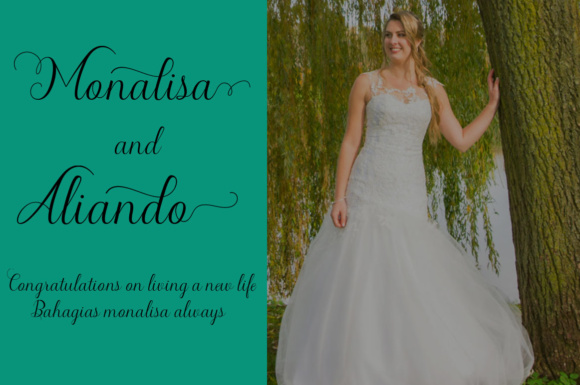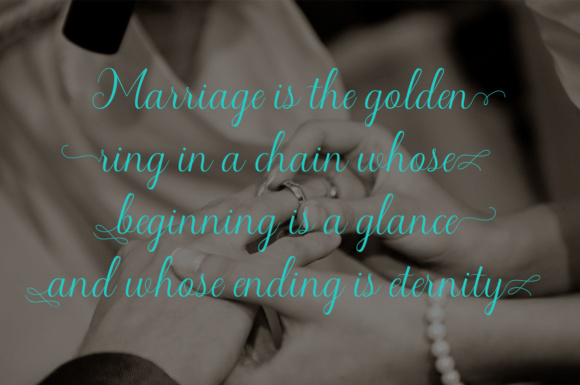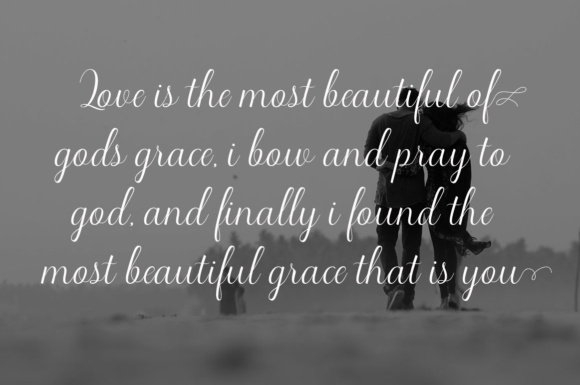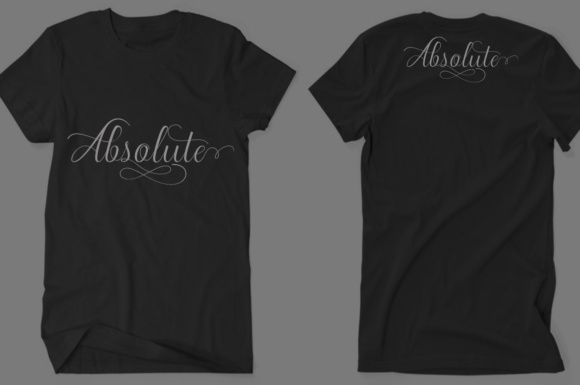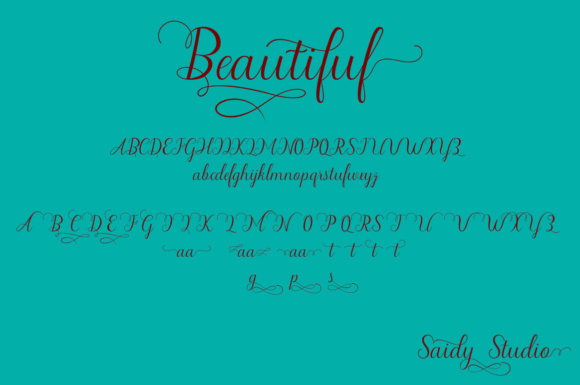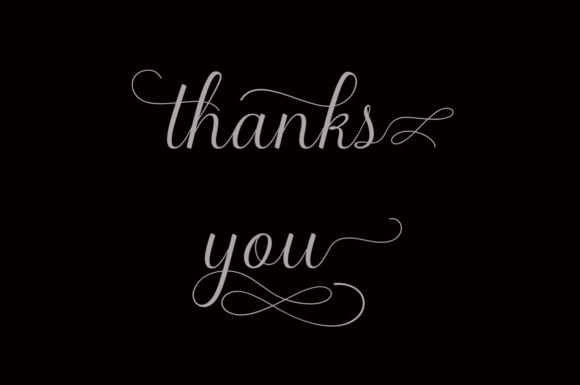
The Beautiful Script Font: A Modern Calligraphy Dream
I still remember the exact moment I fell in love with The Beautiful script font. I was working on a wedding invitation project for a client who wanted something elegant, yet modern. I had spent hours scouring the internet for the perfect font, but nothing seemed quite right. That was until I stumbled upon The Beautiful, a stunning modern calligraphy script that instantly captured the essence of what I was looking for.
So, what makes The Beautiful so special? Let’s dive into the good stuff and a few quirks I’ve discovered.
- ✨ Modern, handwritten feel: The Beautiful has a fresh, contemporary vibe that’s perfect for projects that need a personal touch.
- ✅ Unique calligraphy forms: The font’s creative swashes and flourishes add a level of sophistication to any design.
- 💫 Highly legible: Despite its ornate nature, The Beautiful remains surprisingly easy to read, even at smaller sizes.
While The Beautiful is an amazing font, there are a few things to keep in mind:
- ⚠️ Not ideal for body text: Due to its intricate design, The Beautiful works best for headlines, titles, and short paragraphs.
- 🤔 Some characters may require manual adjustment: Occasionally, you might need to tweak the spacing or kerning of certain characters to get the perfect look.
The story behind The Beautiful is one of passion and creativity. While the font’s actual origins are unclear, it’s easy to imagine a designer pouring their heart into crafting a modern calligraphy script that would inspire artists and designers worldwide. Perhaps the designer, fueled by a love for handwritten letters and vintage typography, set out to create a font that would bring elegance and sophistication to any project.
Q: What makes The Beautiful a modern calligraphy script?
A: The Beautiful combines traditional calligraphy techniques with a fresh, contemporary approach, making it perfect for modern designs.
Q: Is The Beautiful suitable for digital and print designs?
A: Absolutely! The Beautiful works well in both digital and print designs, from social media graphics to business cards and brochures.
Q: Can I use The Beautiful in languages other than English?
A: The Beautiful supports multiple languages, but it’s essential to verify the font’s character set to ensure it covers the specific languages you need.